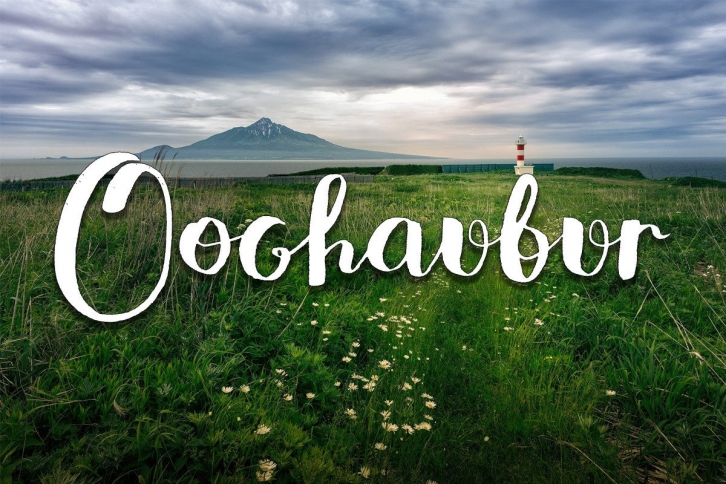
Oochaubur is a sophisticated and unique handwritten font, perfect for complementing your most creative ideas! Use it on invitations, branding projects, logos, watermarks, magazines, and more.